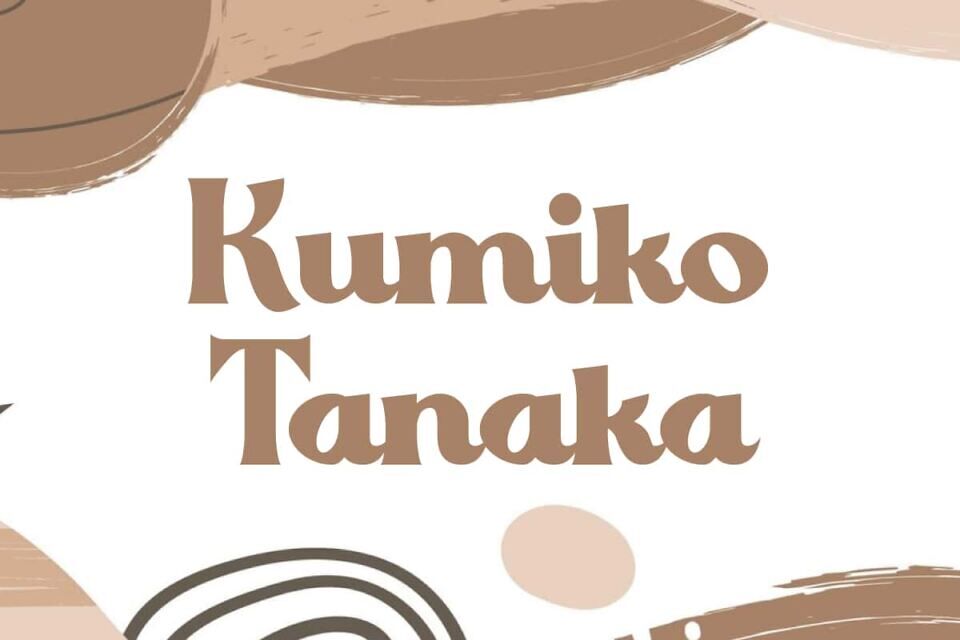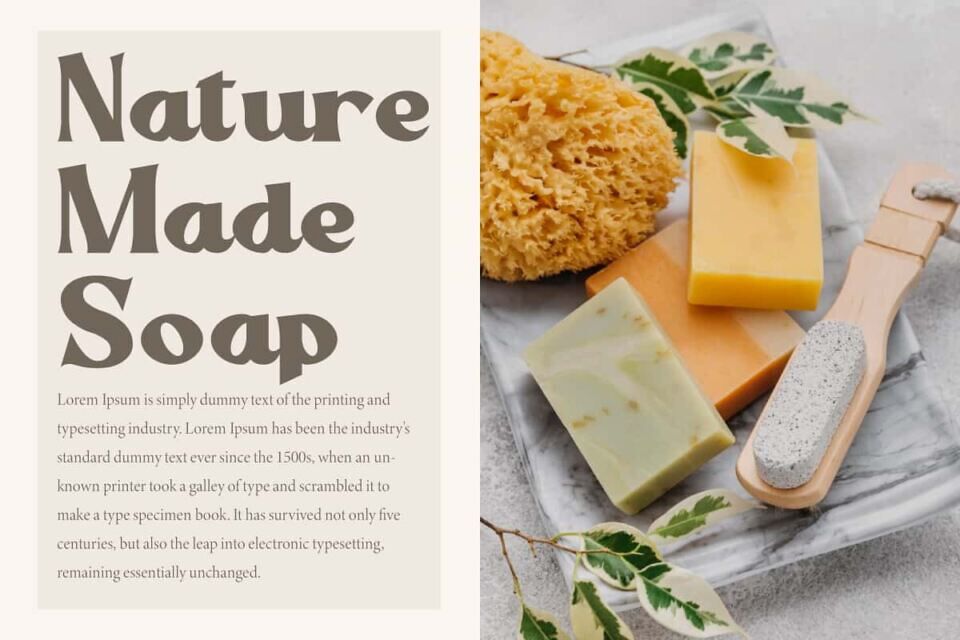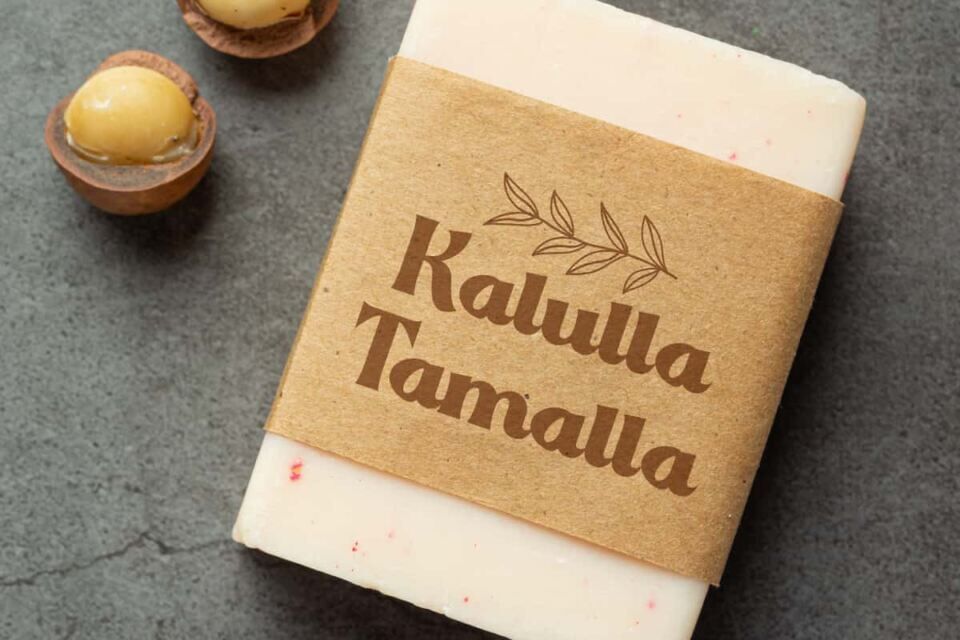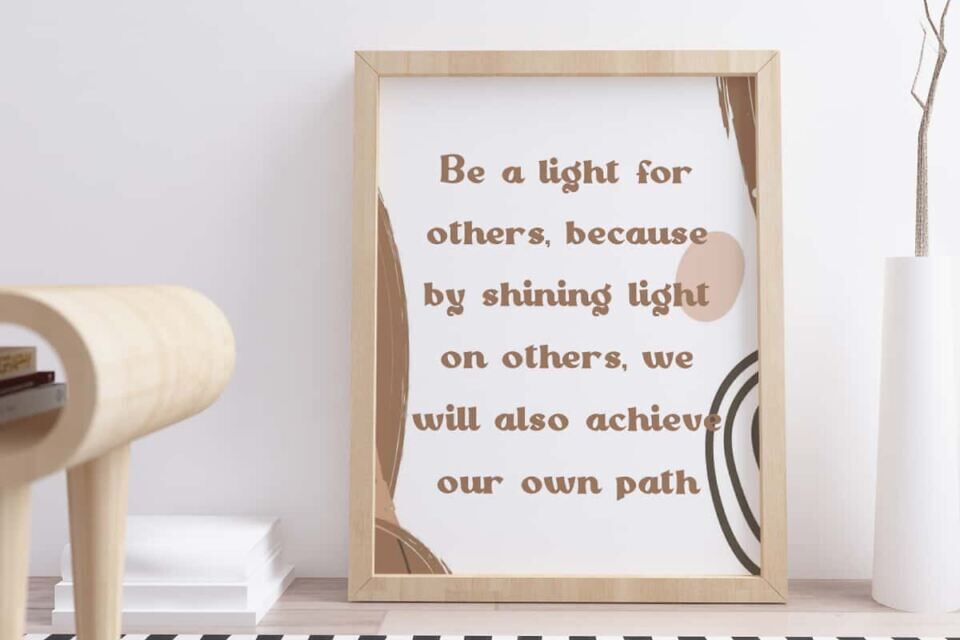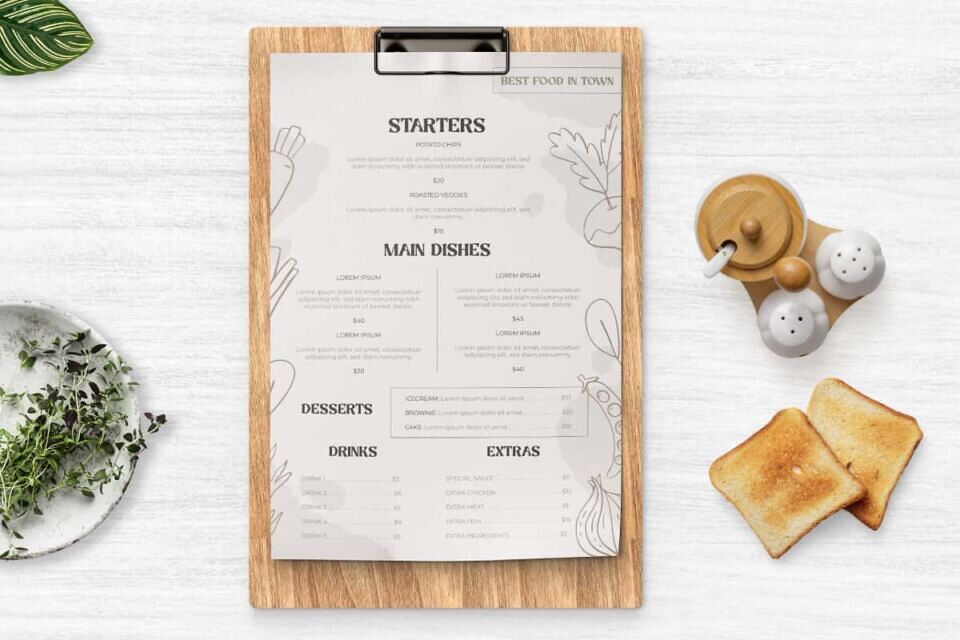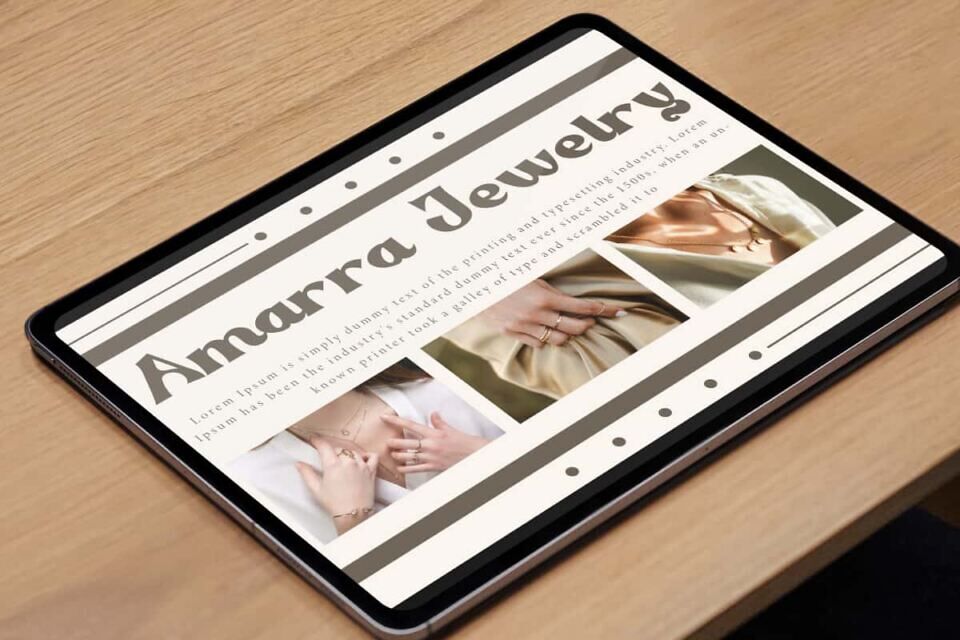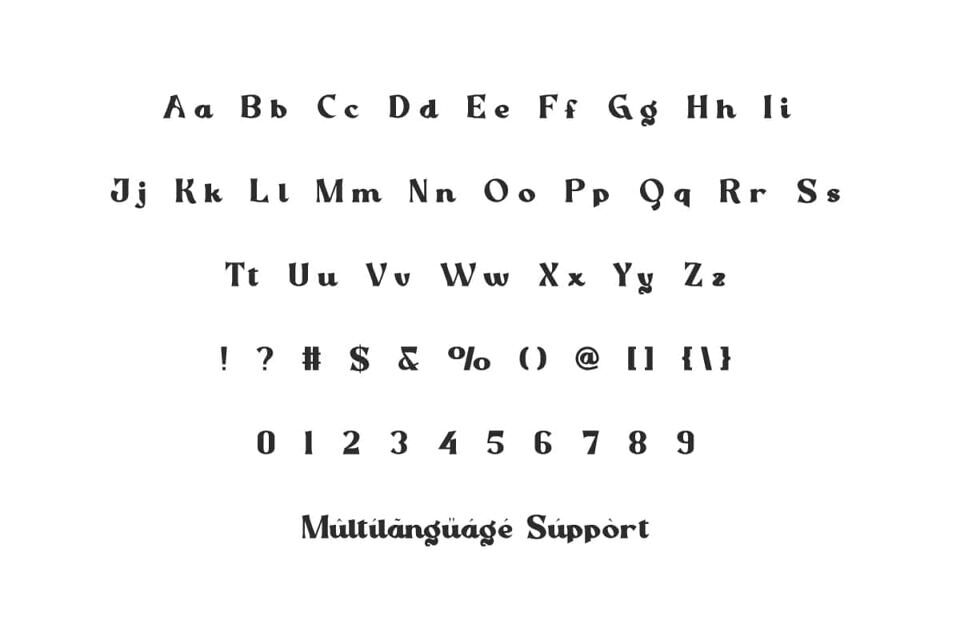
Kumiko Tanaka Font is a playful unique casual comic serif display font designed with classic branding in mind. This beautiful font seamlessly blends classic charm with contemporary style.